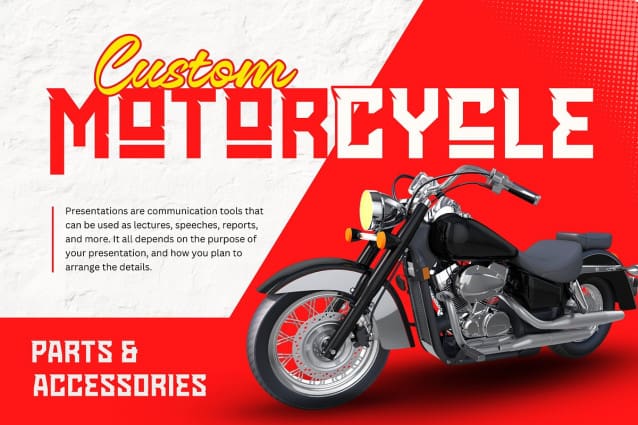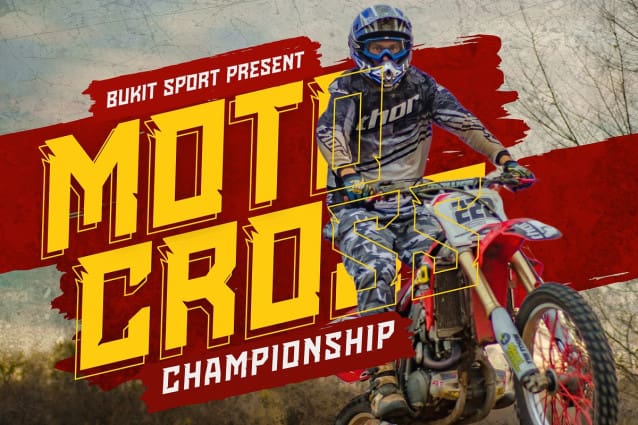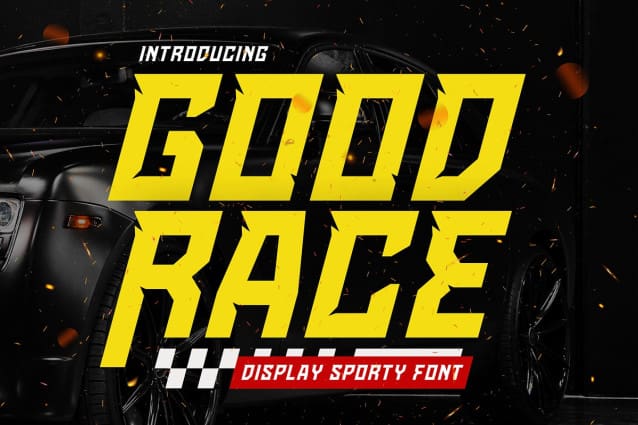
Goodrace Display Font
Goodrace Display Font, a dynamic sporty racing font that captures the thrill and excitement of the racetrack. With its sleek, bold letterforms and energetic design, “Goodrace” is perfect for sports branding, race event promotions, logos, and merchandise. This font exudes speed and power, making your designs stand out with a competitive edge. Rev up your projects with “Goodrace” and bring the adrenaline of racing to your audience